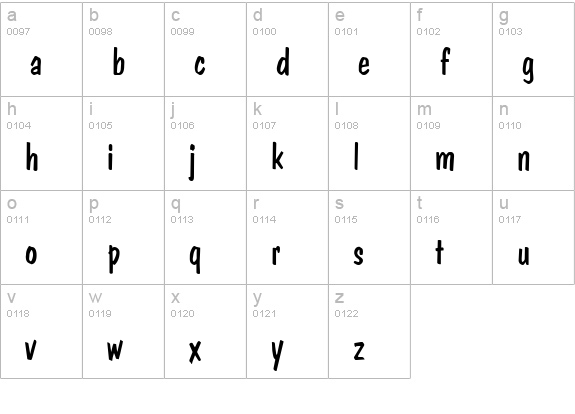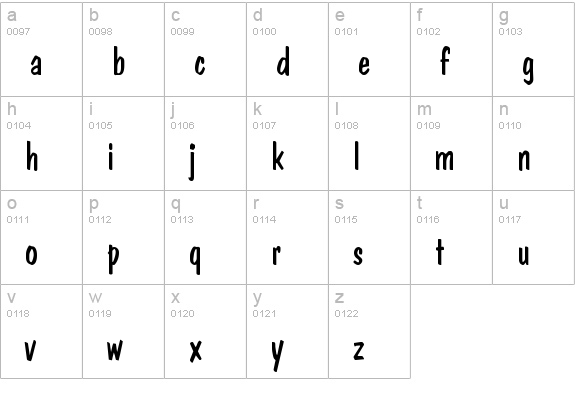
Franciscan Regular Font Details
Franciscan Regular is the standard, neutral variant in the Franciscan typeface family \xE2\x80\x94 well suited to general body text, paragraphs, and standard typographic work.
Introducing the exquisite Franciscan Regular font, a timeless and elegant typeface that exudes sophistication and grace. With its classic design and clean lines, Franciscan Regular is perfect for a wide range of projects, from branding to editorial design. The beauty of Franciscan Regular lies in its versatility, making it suitable for both digital and print applications. Whether you're working on a logo, website, or brochure, this font is sure to make a lasting impression. And the best part? Franciscan Regular is available for free download at FontsMarket.com. So why wait? Enhance your designs with this stunning font today and elevate your work to the next level.